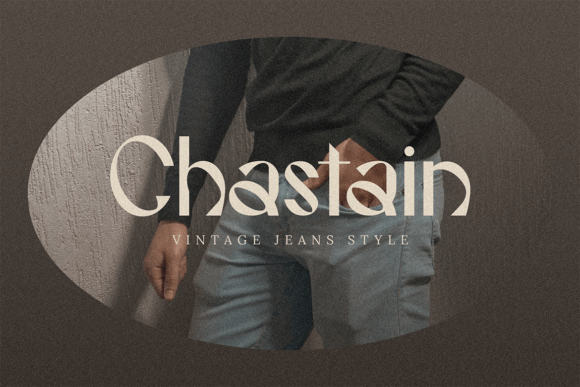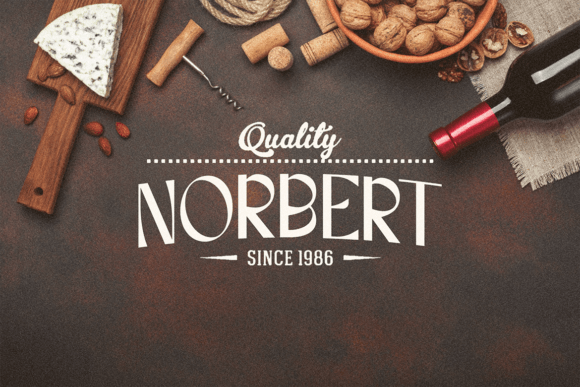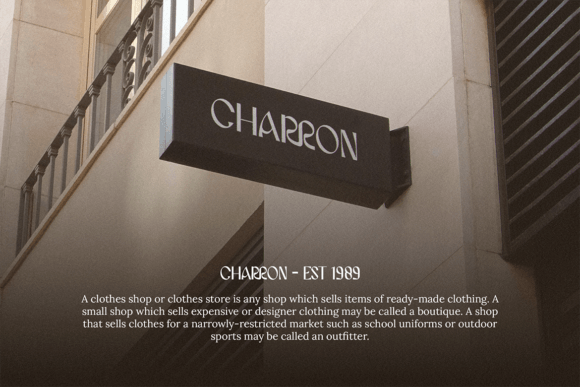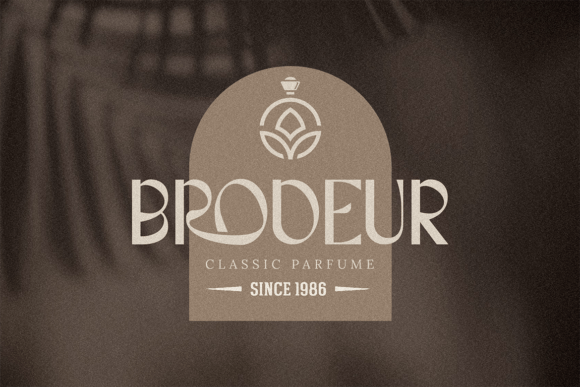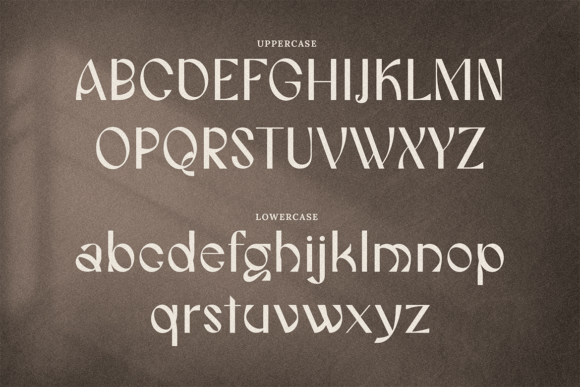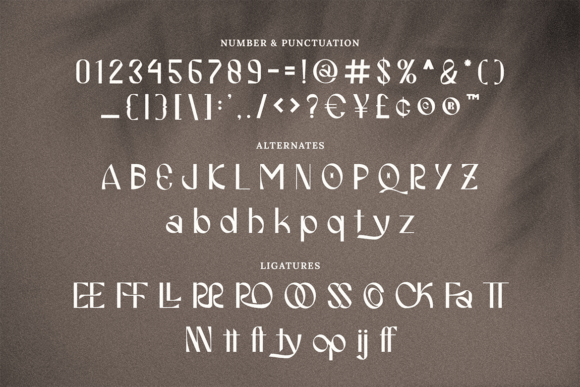
Introduction to Greenos Font
Have you ever stared at a blank canvas, feeling the creative pressure mounting, and suddenly, a spark of inspiration strikes? That’s exactly what happens when you lay eyes on the stunning Greenos Font. Its elegant and bold serif style has the power to elevate even the most mundane designs into breathtaking works of art.
| 👤 Author | CreatypeStudio |
As a designer, you’re always on the lookout for that perfect design resource to take your creative project to the next level. And that’s where Greenos Font comes in – a high-quality, versatile font that’s perfect for everything from wedding invitations to social media posts. With its sleek, sophisticated look, it’s a must-have for any designer looking to add a touch of elegance to their work.
Key Features of Greenos Font
- Unique, hand-drawn design ideal for creative projects, offering a touch of elegance and sophistication.
- Available in 5 different font sizes and styles (Regular, Italic, Bold, Bold Italic, Outline) for added versatility.
- Perfect for use in logos, branding materials, and other design elements where a distinctive, high-quality font is required.
Honest Review: Greenos Font
I recently stumbled upon the Greenos Font, and I must say it’s a wonderful addition to any designer’s toolkit. As a design resource, it’s a great choice for creative projects that require a unique touch.
One of the standout features of the Greenos Font is its versatility. It works well in a variety of contexts, from logos and branding materials to digital interfaces and publications. The font is also highly customizable, making it a great choice for designers who want to add a personal touch to their projects.
- ✨ Works well with transparent backgrounds, allowing for seamless integration into your design.
- ✨ Features a high-quality design that’s perfect for creative projects.
However, I did encounter some limitations while using the Greenos Font. ⚠️ The font is not suitable for use in all languages, and the character set is limited.
Overall, I’m impressed with the Greenos Font. It’s a great design resource that’s perfect for designers who want to add a unique touch to their projects. While it may have some limitations, the benefits far outweigh the drawbacks. I would highly recommend the Greenos Font to any designer looking for a high-quality, versatile font.
The Greenos Font is a versatile and high-quality design resource perfect for any creative project. With its unique style and transparent background, it can elevate your designs to the next level.
To get the most out of the Greenos Font, experiment with different font sizes, colors, and combinations. This will help you create unique and eye-catching designs for your creative project.
The Greenos Font is perfect for various design projects, including:
- Logo designs
- Business cards and invitations
- Social media graphics and ads